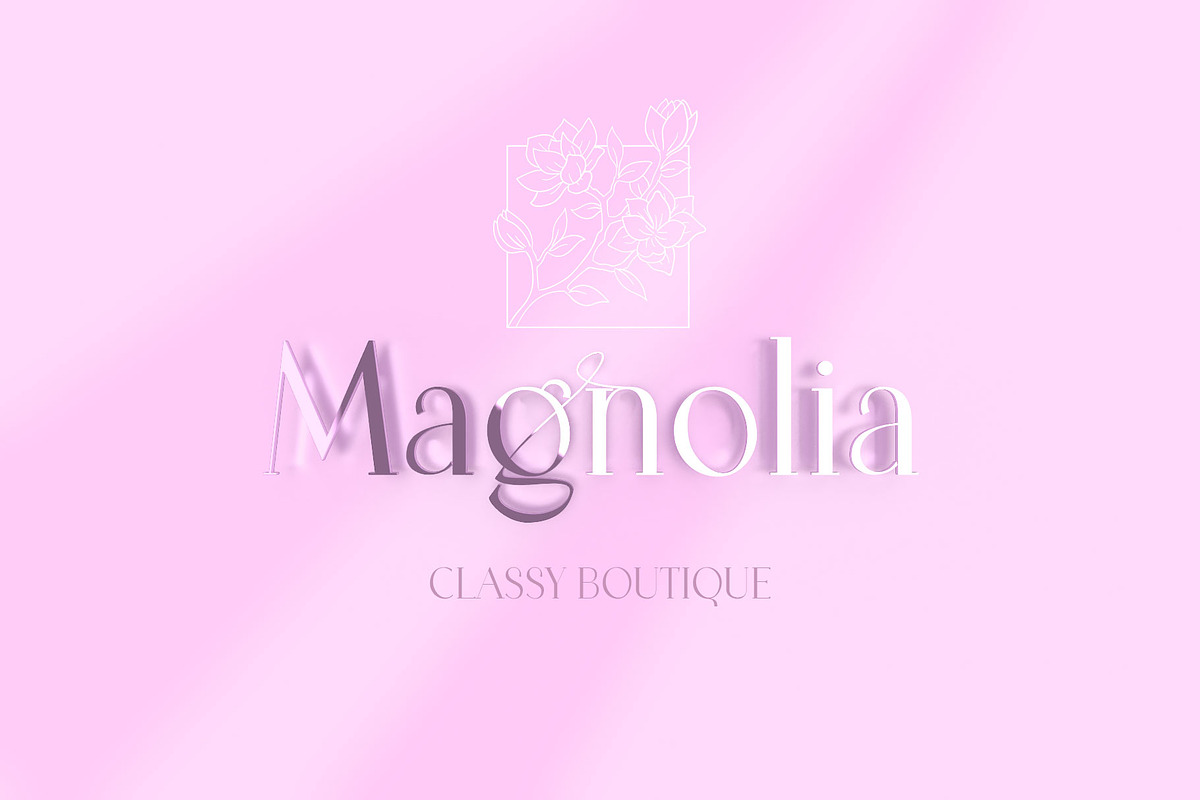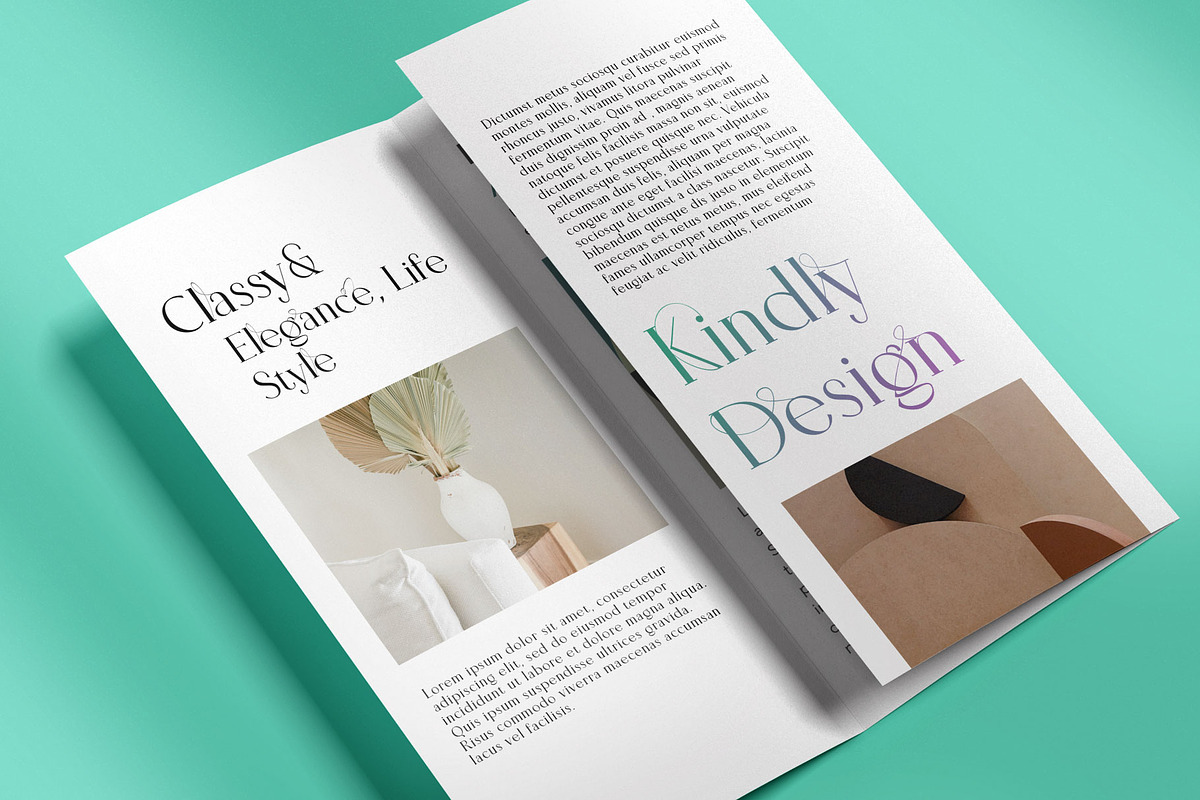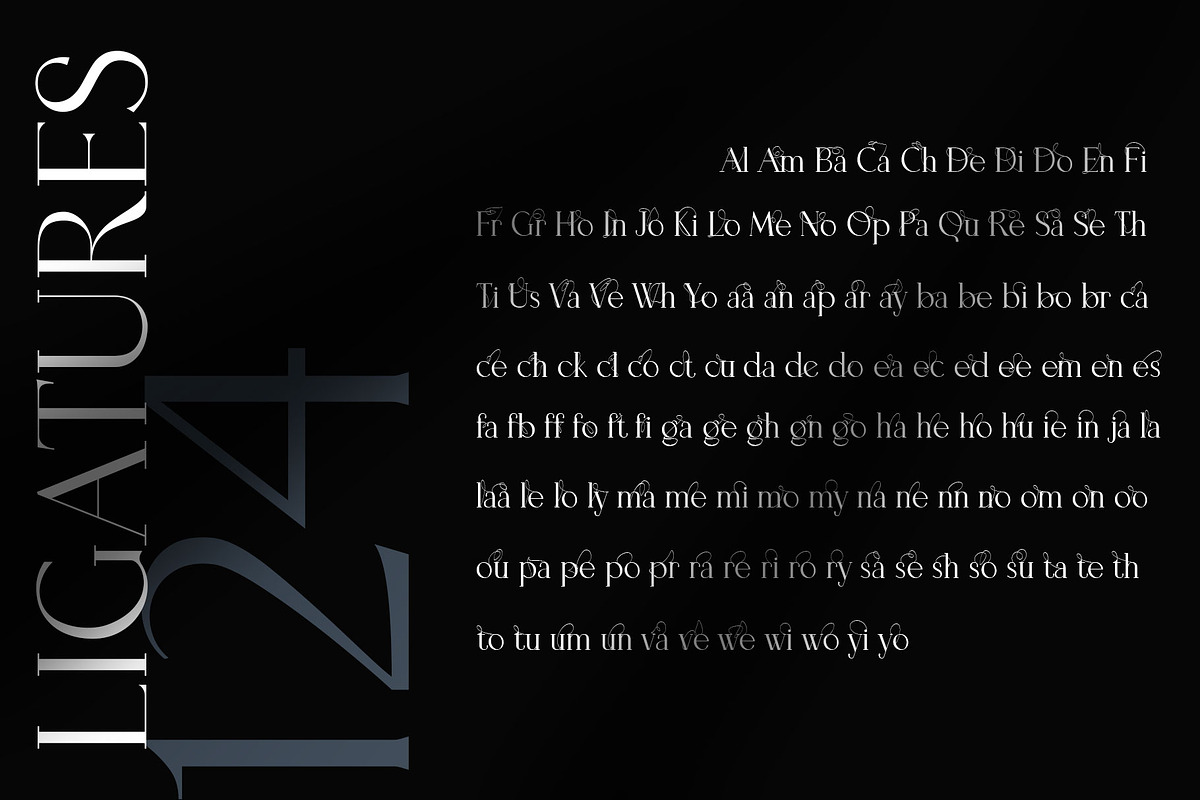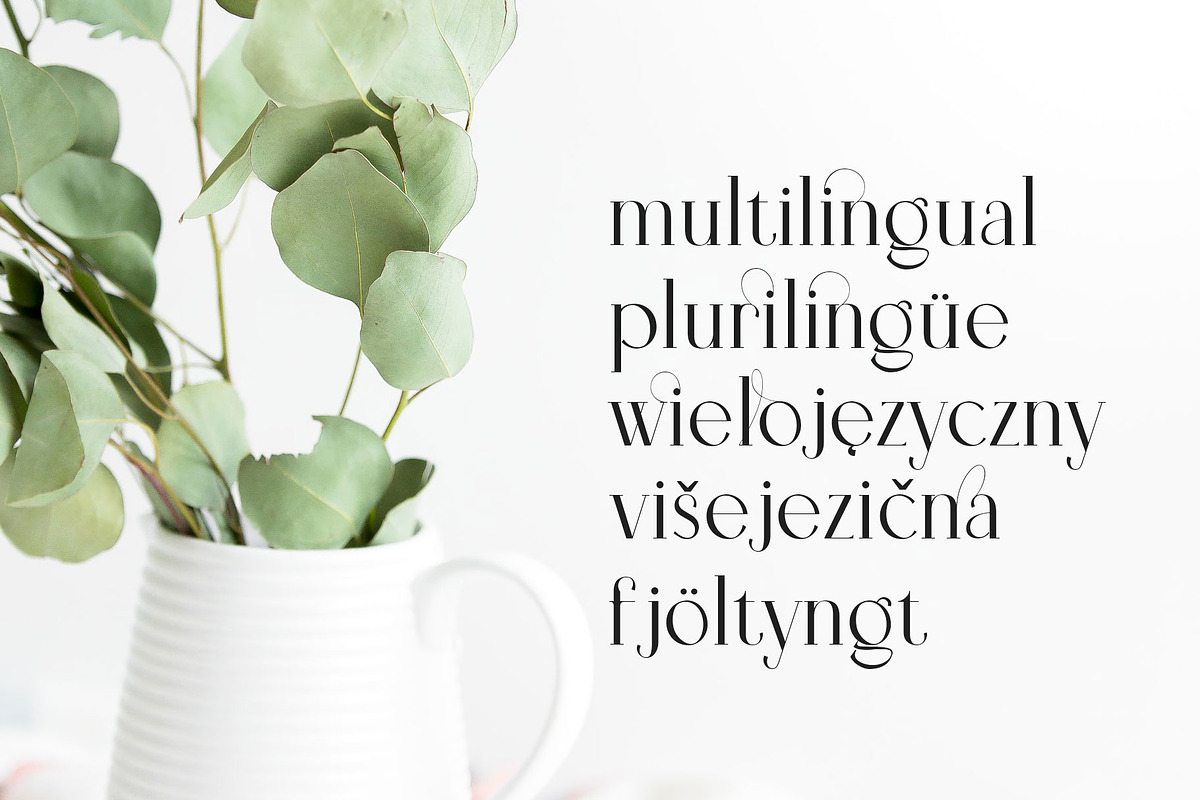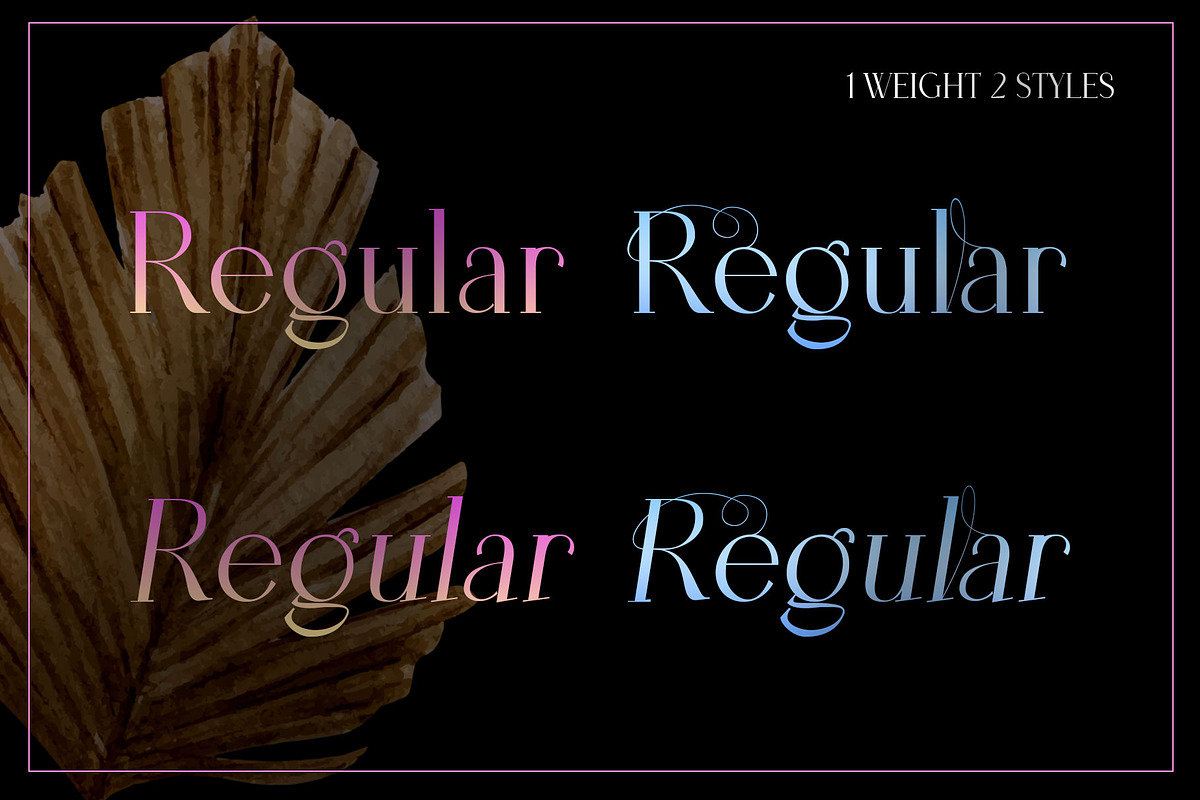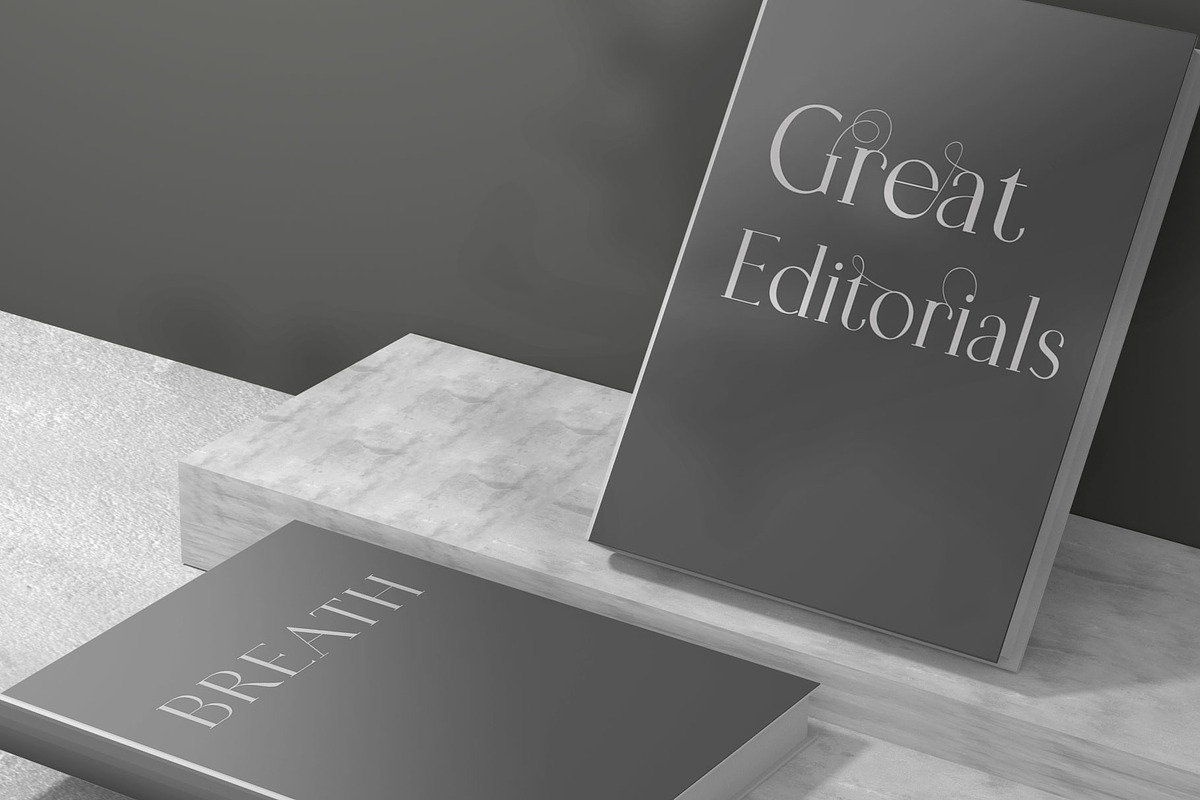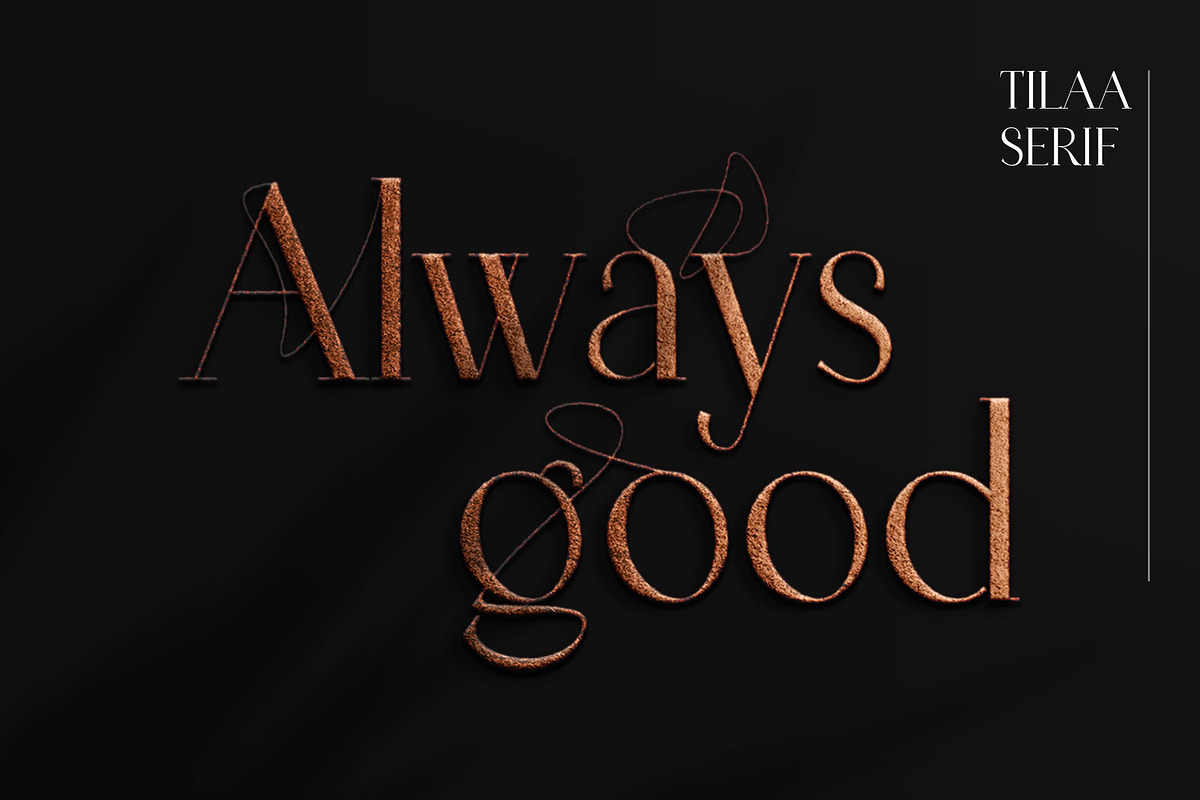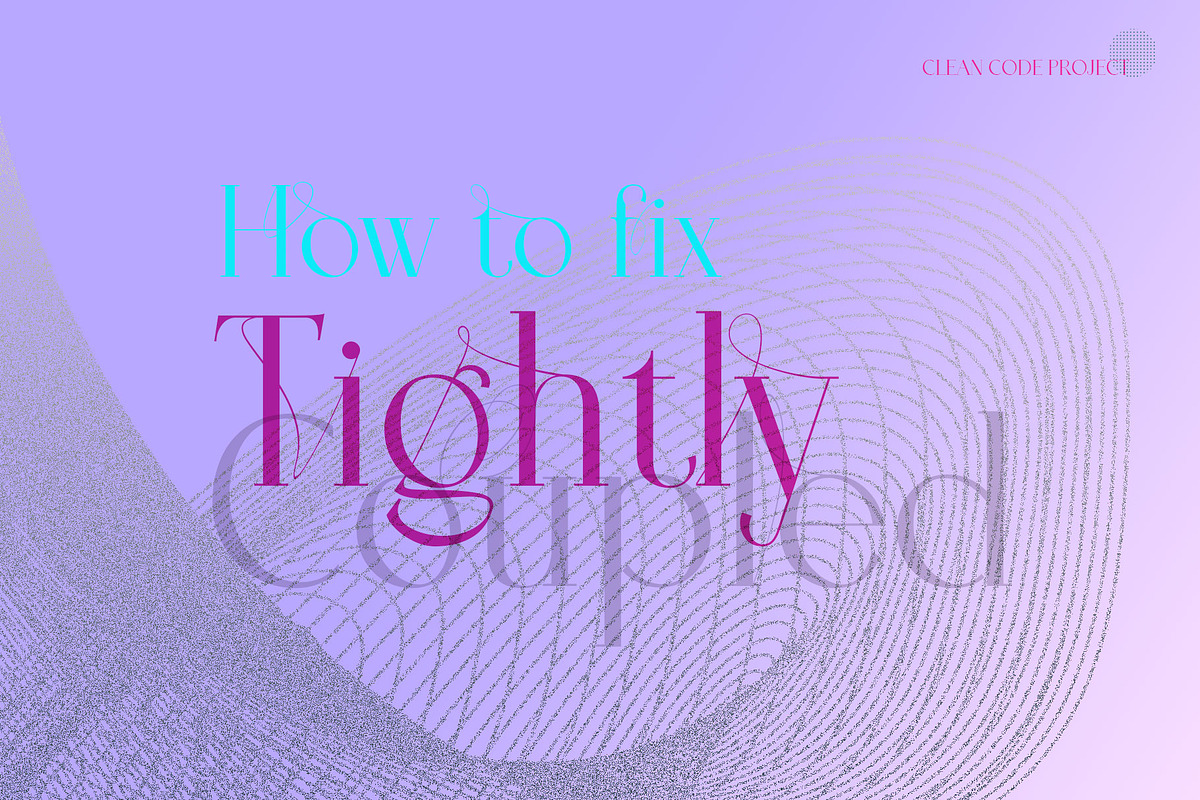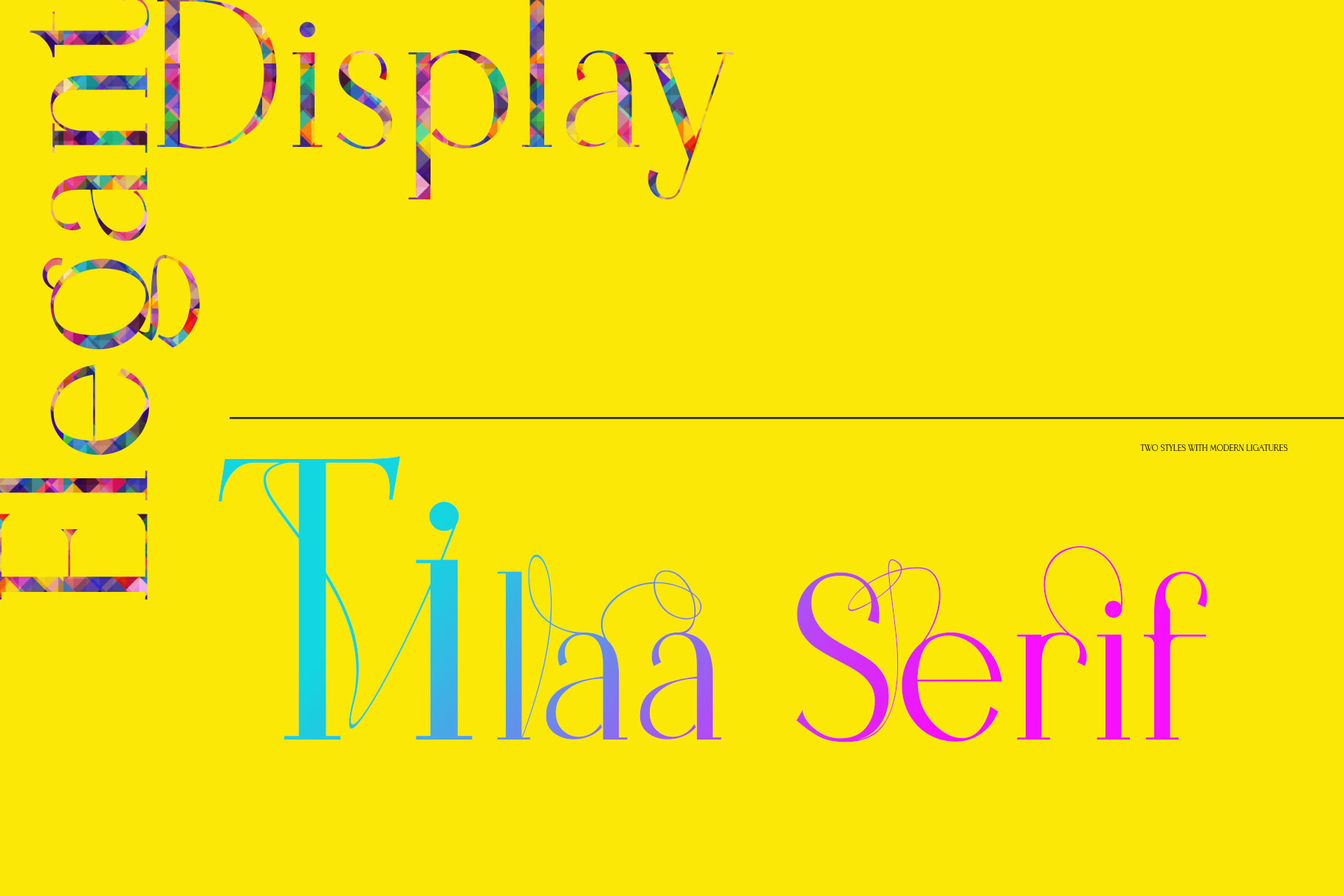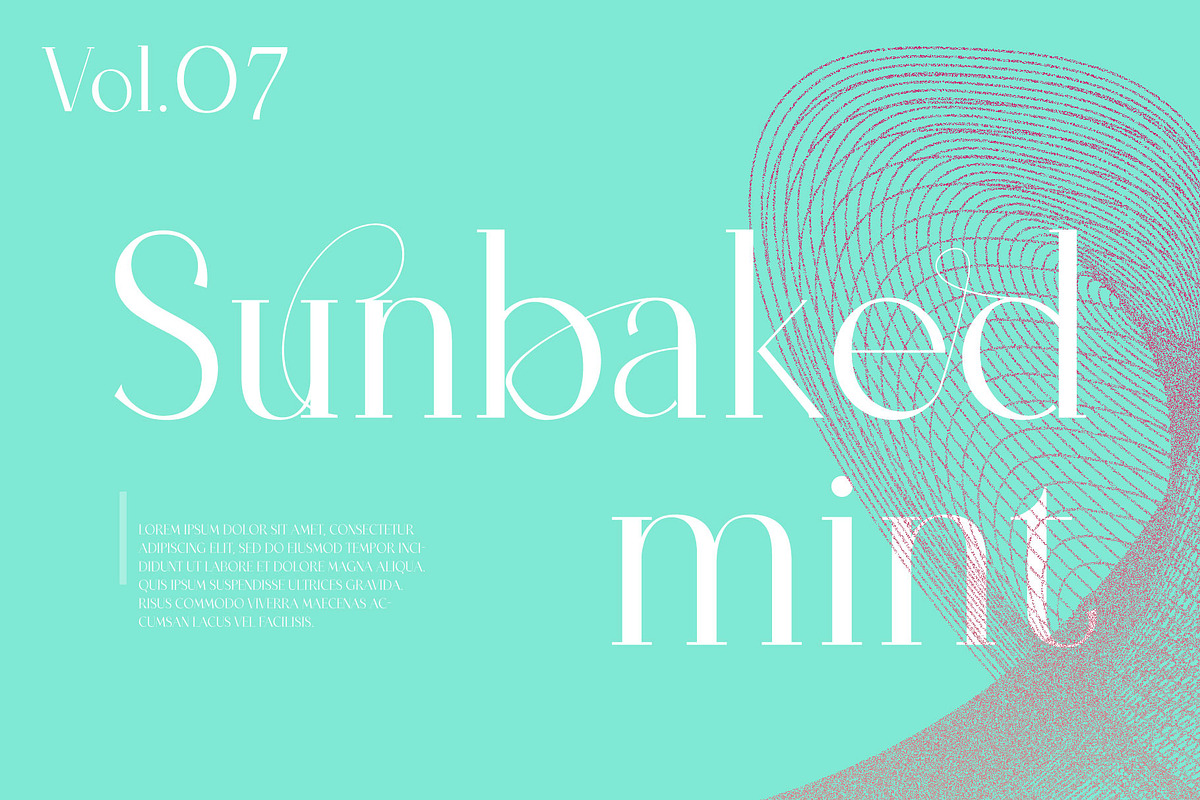
Tilaa Serif -Ligature Typeface
Tilaa Serif is a beautiful typeface with extensive coverage ranging from editorial design to web design.
Manually adjusted italic inclination and 124 Ligatures are innovative solutions for classic and defiant styles. And it is excellent for creating modern and luxurious logos and titles by incorporating rebellious ligatures while maintaining classic skeletons.
- 541 Glyphs
- salt, ccmp, locl, sups, numr, dnom, frac, ordn, lnum, onum, and ligatures.
- multilingual supports
- 124 ligatures